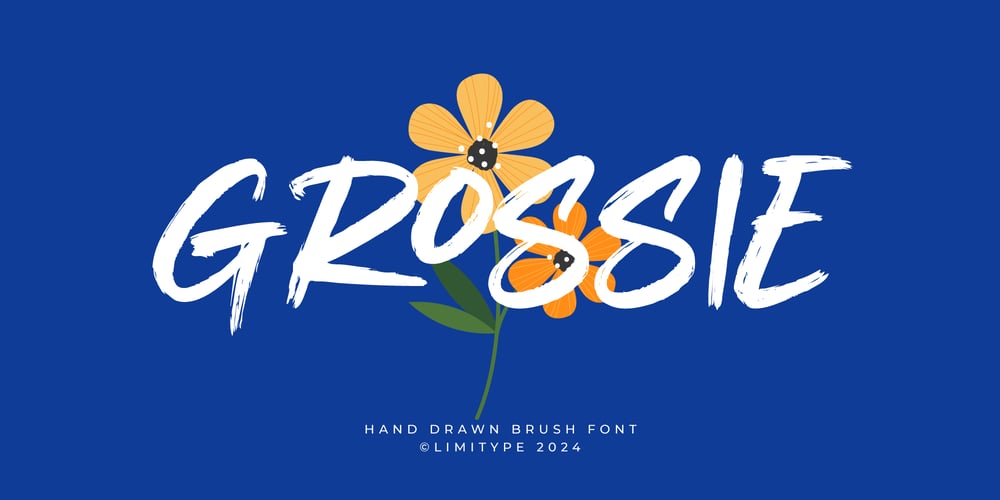
Grossie Font Family was designed by Muhammad Muammar and published by limitype. Grossie contains 1 styles and family package options. Grossie is a brush font made with natural hand strokes with a fun and modern impression, this font is suitable for your designs that need a playful, cheerful and fresh touch. You can apply grossie to large media such as posters, banners, magazine headlines, packaging, etcGrossie version 1.0 is available with: Allcaps Font Numbers Symbols Alternate And multilingual